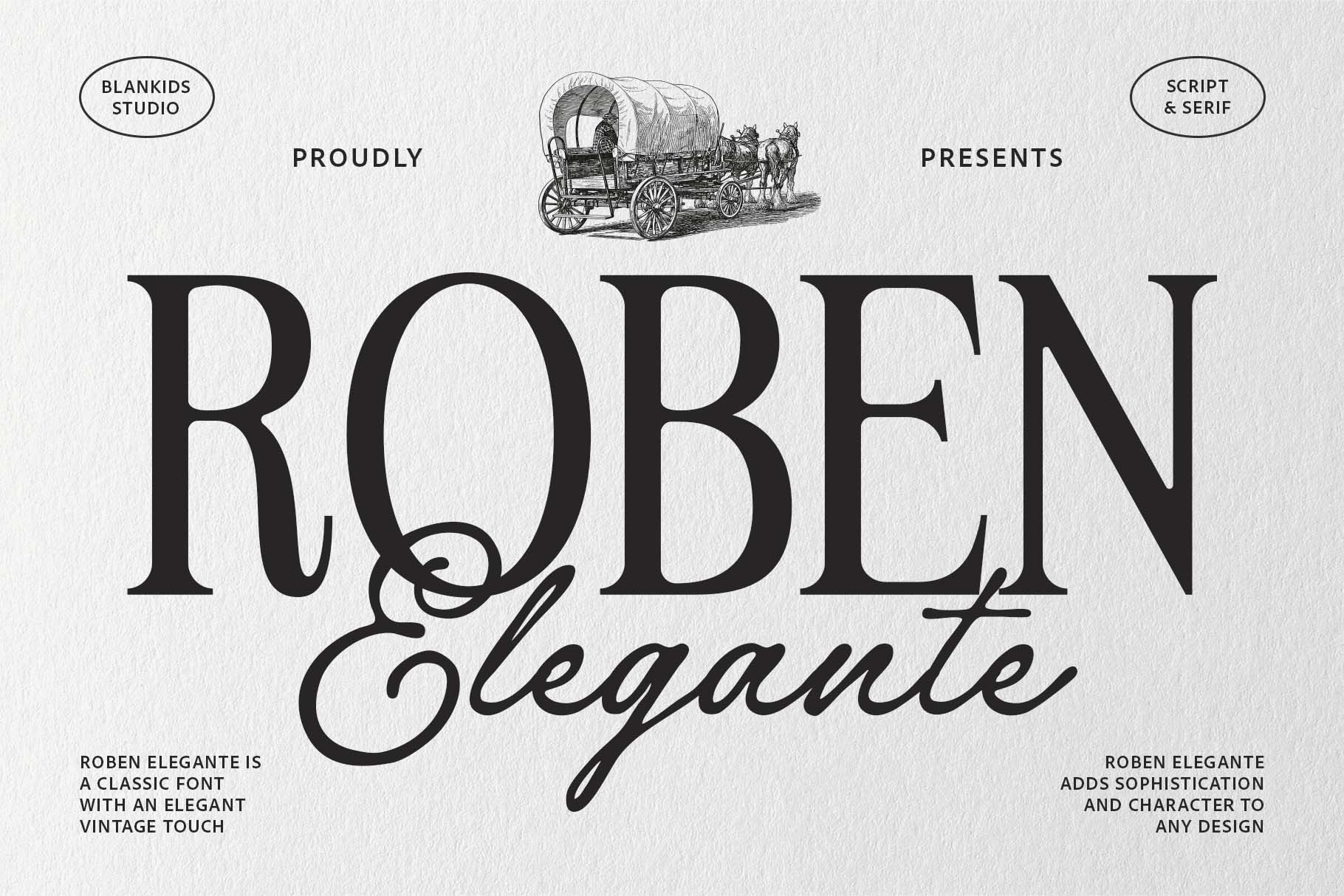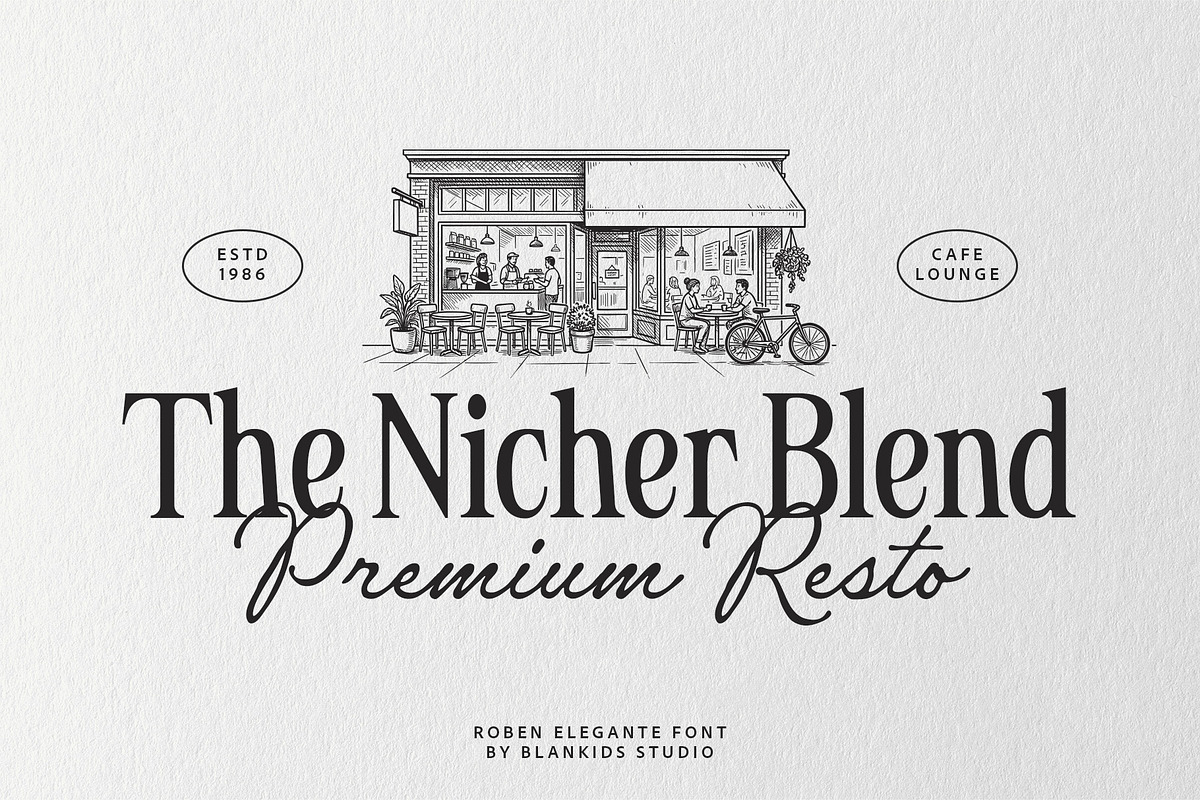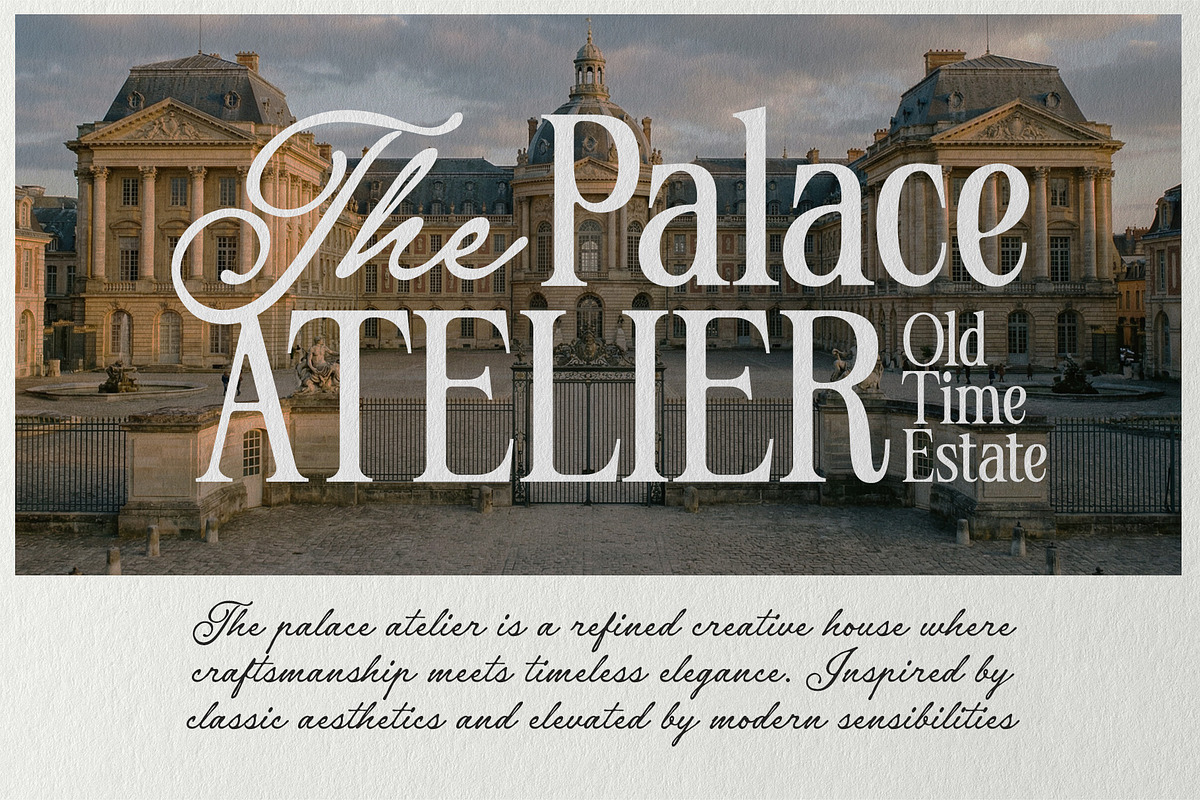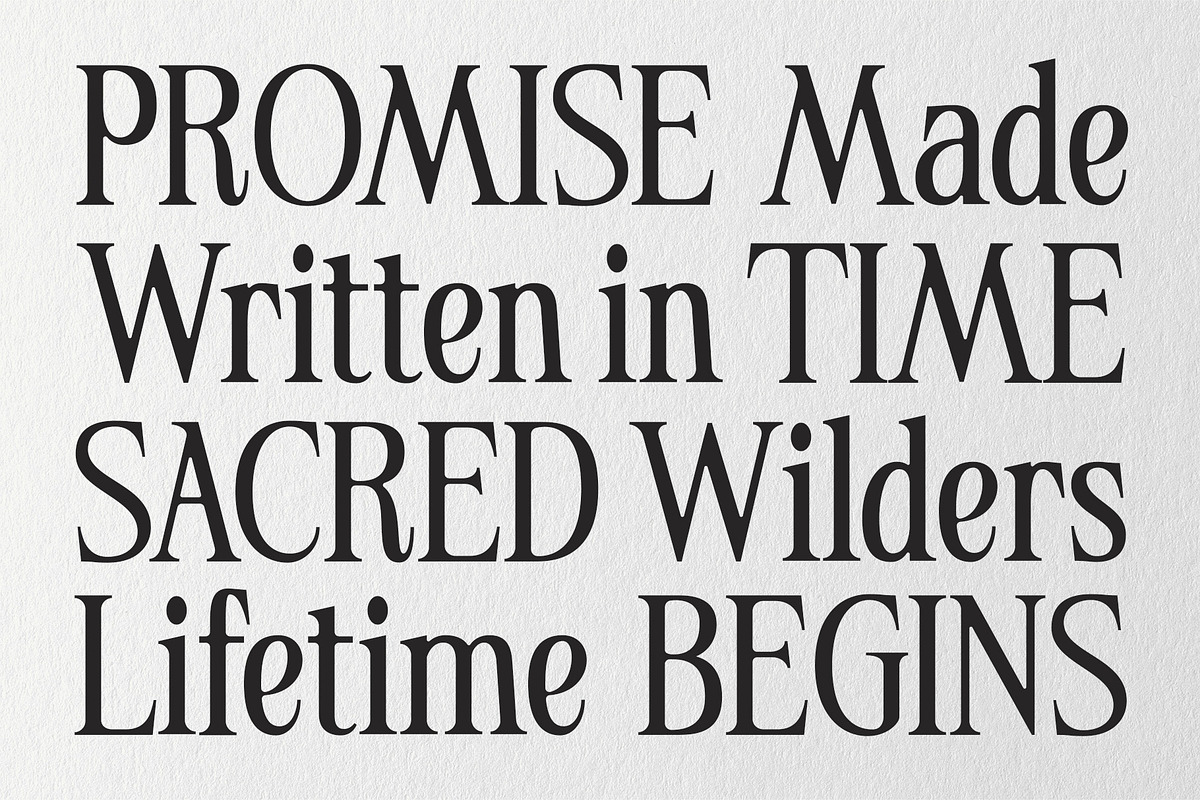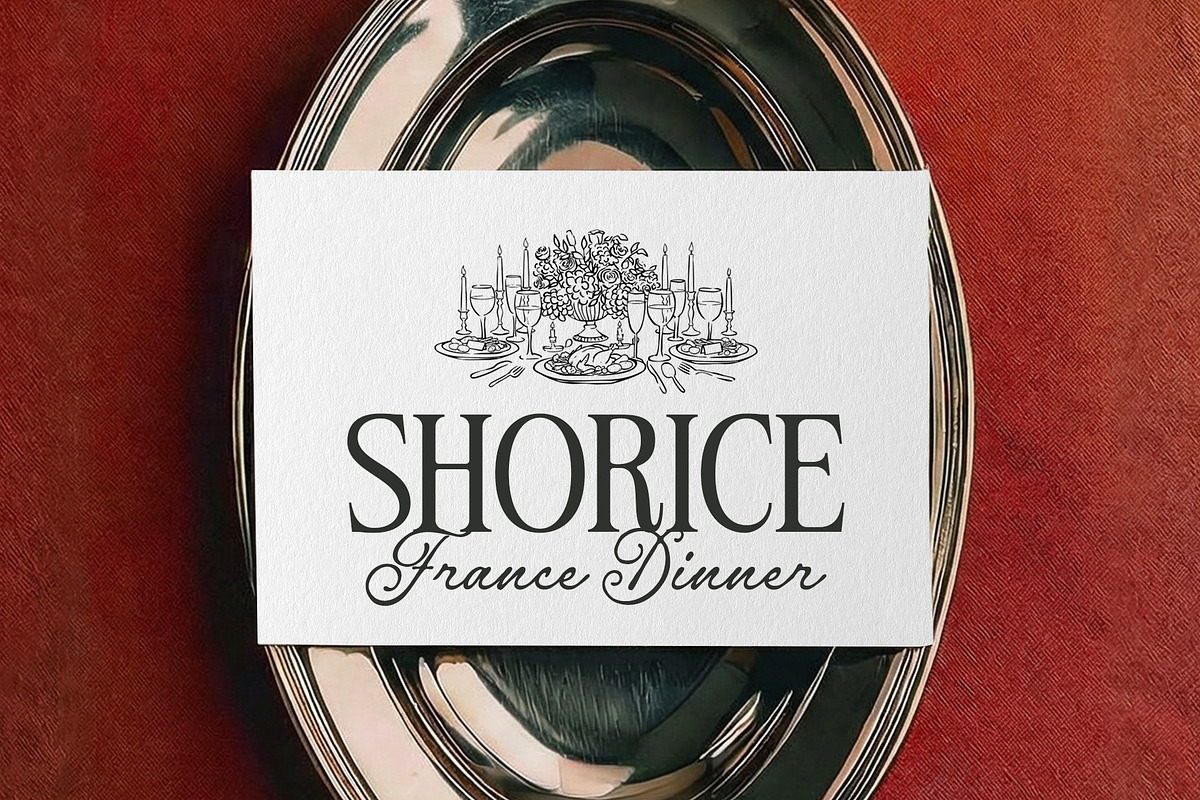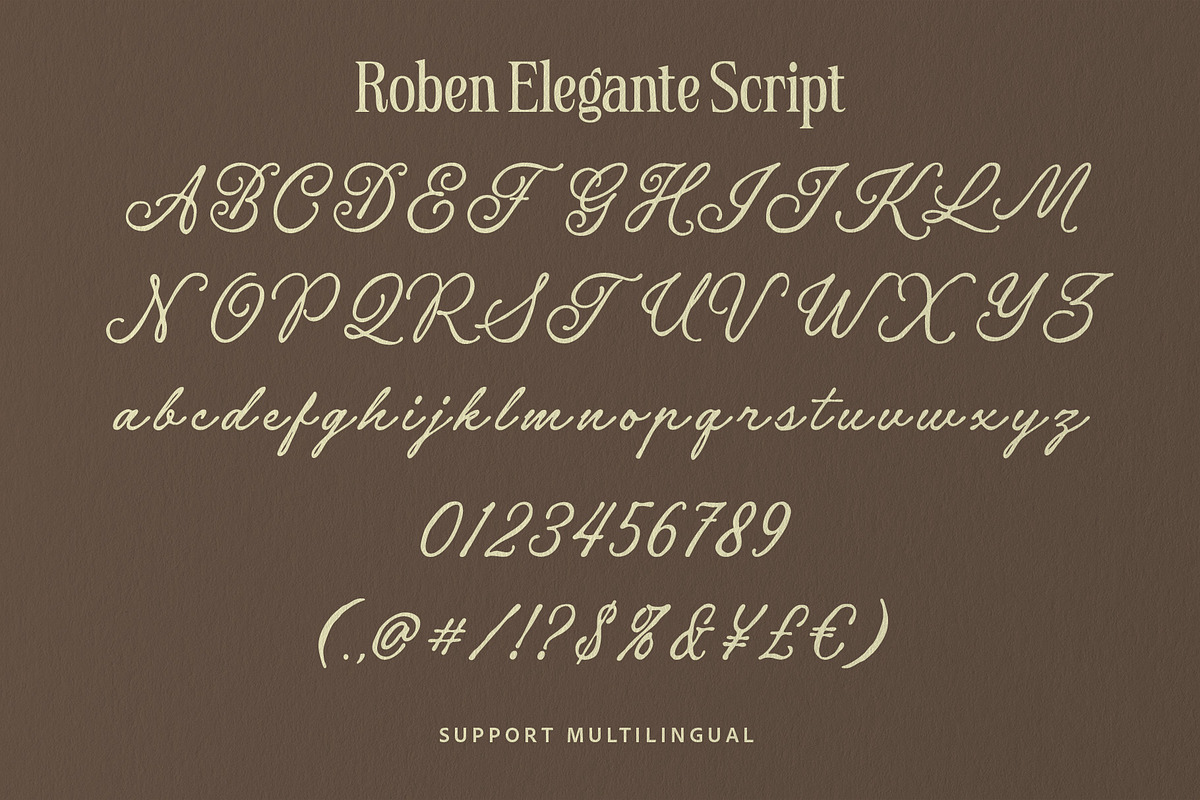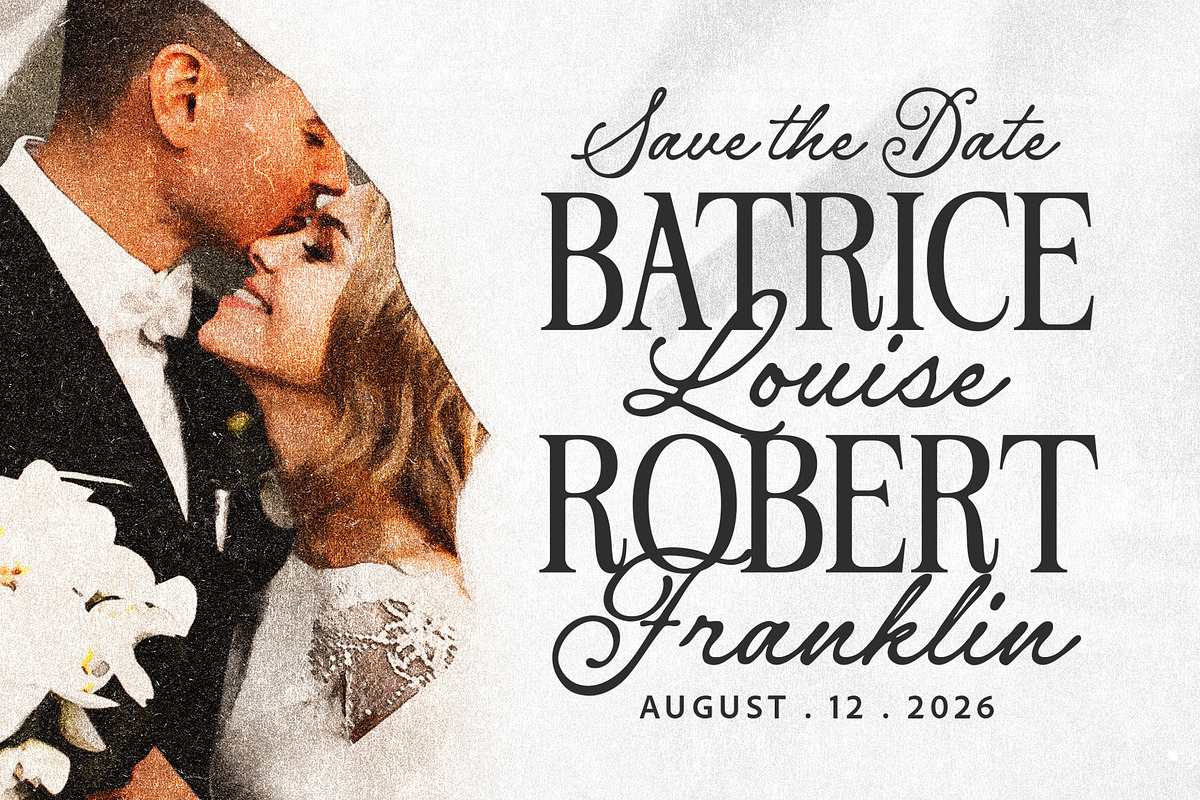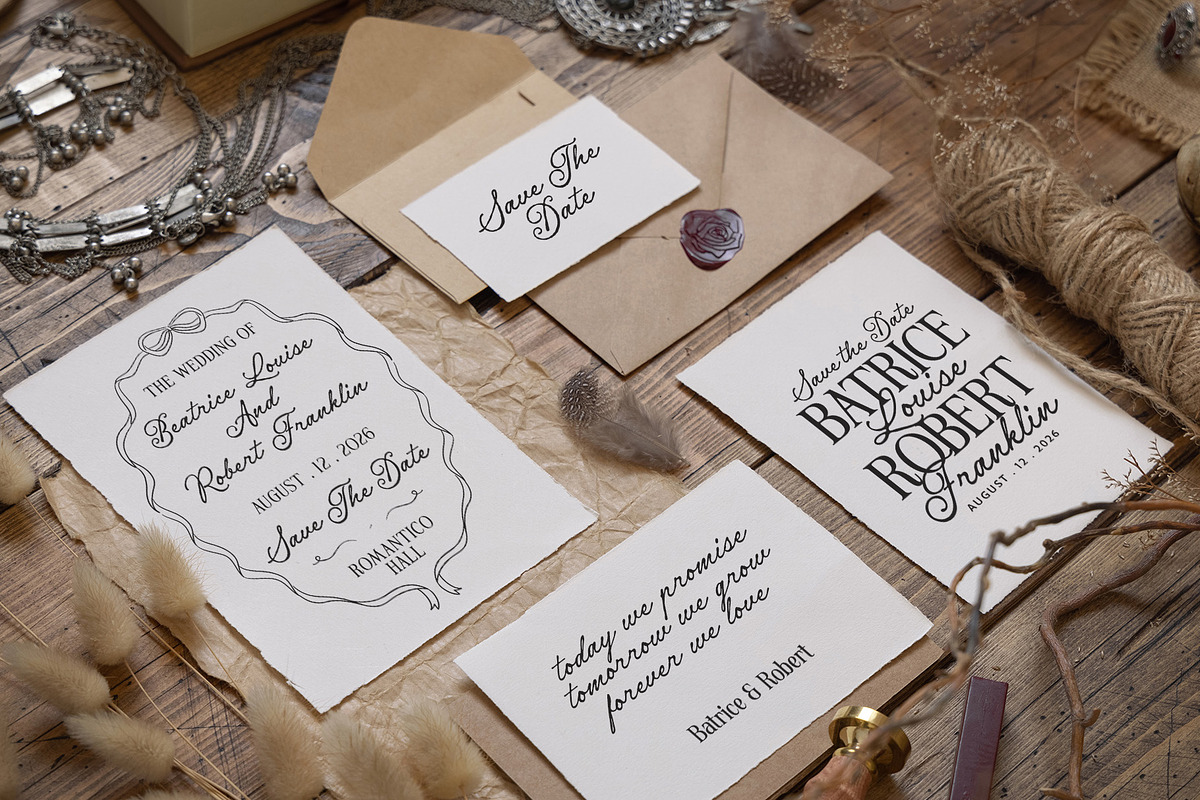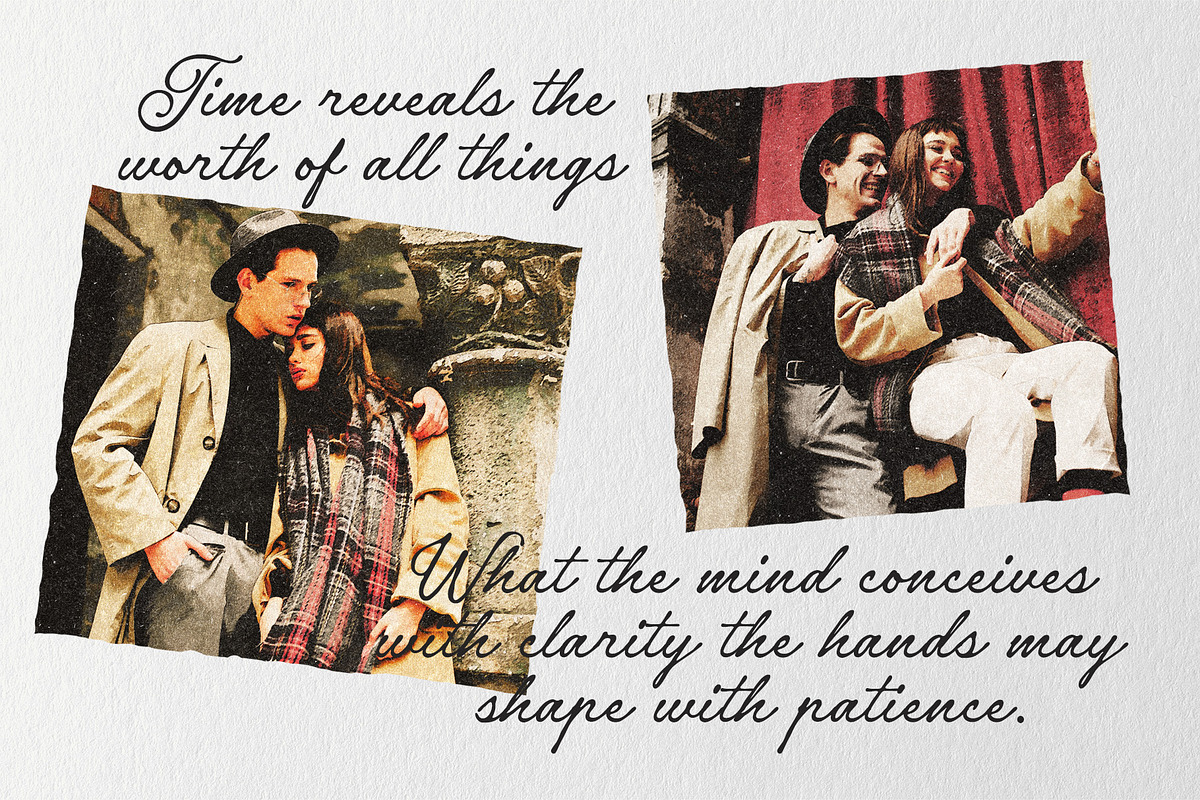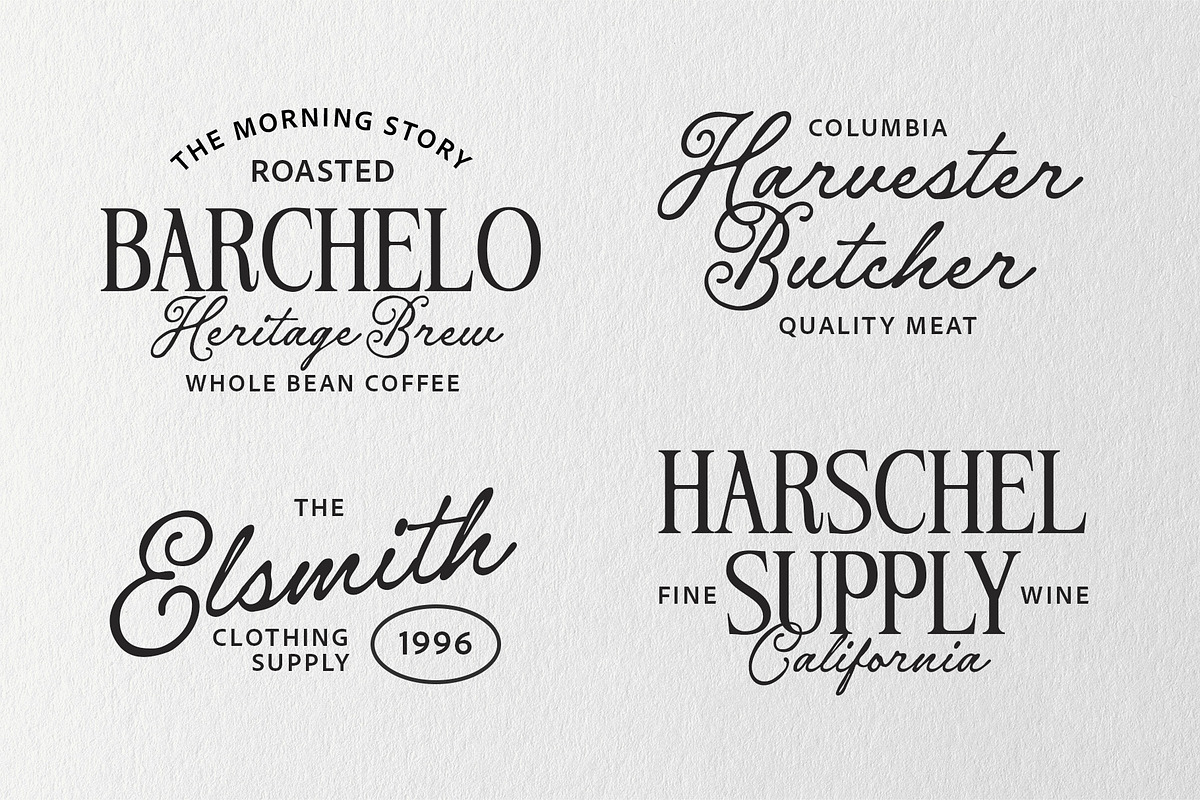
Roben Elegante Font Duo
Roben Elegante – Classic Serif & Script Typeface
Roben Elegante is a refined typeface that masterfully blends a bold classic serif with an elegant handwritten script. Inspired by timeless European typography and vintage editorial design, this font brings sophistication, charm, and character to any creative project.
The serif style delivers strength, clarity, and authority, while the flowing script adds a graceful, romantic touch making Roben Elegante a perfect choice for designers who seek balance between structure and artistry.
Designed for versatility, Roben Elegante works beautifully across a wide range of applications, from luxury branding to wedding stationery. Its classic proportions and smooth curves ensure excellent readability while maintaining a high-end aesthetic.
- Luxury brand logos & identity
- Wedding invitations & event stationery
- Editorial layouts & magazine headlines
- Café, restaurant, and boutique branding
- Packaging, labels, and vintage-inspired designs
- Quotes, posters, and social media visuals
Why choose Roben Elegante?
- Elegant combination of serif & script styles
- Classic vintage feel with modern usability
- Strong visual contrast for premium designs
- Ideal for both formal and romantic themes
Roben Elegante is more than just a font it’s a statement of timeless elegance, crafted to elevate your designs with sophistication and style.